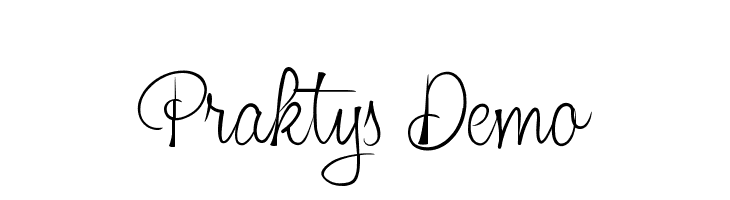
A bold, brush-stroke style font with a dynamic, hand-painted look.
A bold, classic serif font with elegant and slightly condensed letterforms.
A dynamic and fluid script font with elegant, flowing letterforms.
A bold, modern font with a strong, geometric design.
A bold, high-contrast serif font with dramatic strokes and elegant curves.
A bold, dynamic script font with fluid, connected letterforms and a modern vibe.
A sleek, modern font with clean lines and a minimalist aesthetic.
A bold, high-contrast font with dramatic serifs and artistic curves.
An elegant, flowing script font with a handwritten signature style.
A bold, flowing script font with elegant, cursive letterforms and a modern decorative style.